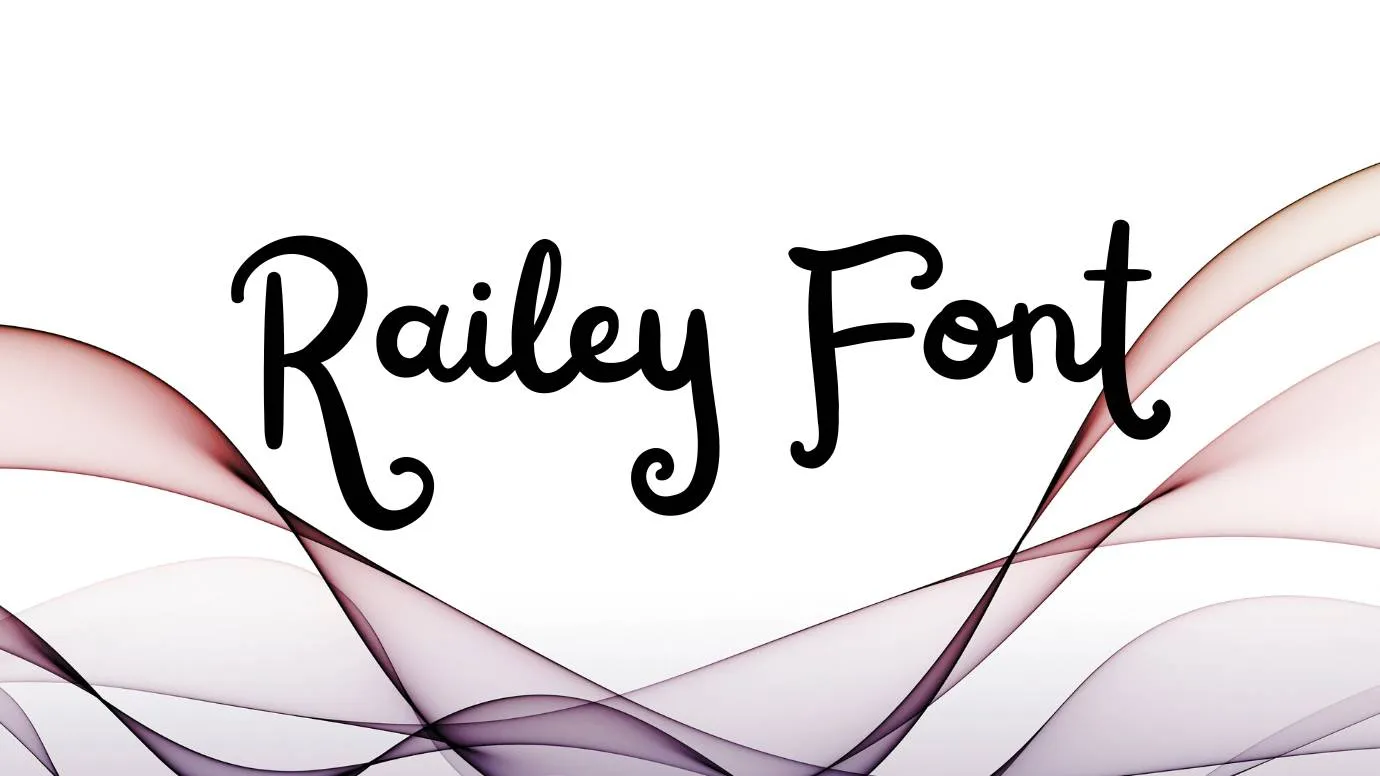
Railey Font Family is a fantastic typeface has bold and curved corners characters that make your design more smooth. It comes with a clean and luxurious look font which has many unique and relaxed features. It is accessible for use in CSS and other designing languages like HTML. Also, it is not listed in google fonts but from this platform, it is easy to get. If any designer or user wants to make it pair with similar fonts then sweet purple font is the perfect option for script-look designs.
The main thing that increases the uniqueness of every font is its advanced and classic features. This tremendous typography has also different classic features like a complete set of classic characters and others. This typography has fancy characters and shows display touch.
Name | Railey Font |
Type | Script |
Designer | Type Fairy |
Features of Railey Font
- You can easily make quote designs, blog header designs, wedding card designs, craft designs, and invoice design purposes.
- You can utilize this eye-catching script font for hand-drawn title designs and stylish name designs for different projects.
- This font family is suitable for making a logo design for different famous institutions, social media channels, public organizations, and different types of digital marketing services companies.
- If you want to create a number of homeware designs, good-quality image designs, social media posts, and so on related purposes.
What type of font is Railey Font?
The type of Railey typeface is the script and Type Fairy is the first publisher or designer of this amazing typeface.
Is there any similar font to Railey Font?
Billy font is the perfect similar typeface for this font that has bold and small swashes. It comes with similar stylistic alternates to the Railey typeface.
Can I use Railey Font for card designing?
Of course, For card printing and designing purposes, this font family is the perfect option for you because that has multiple features.